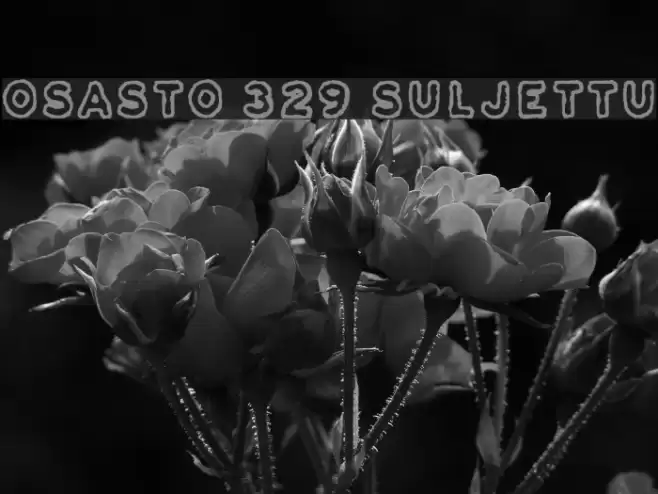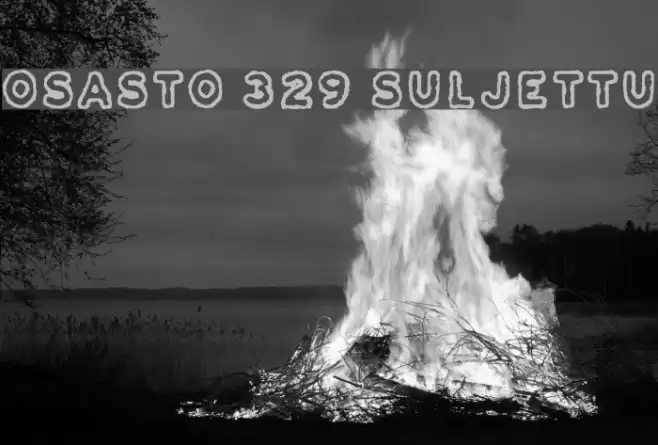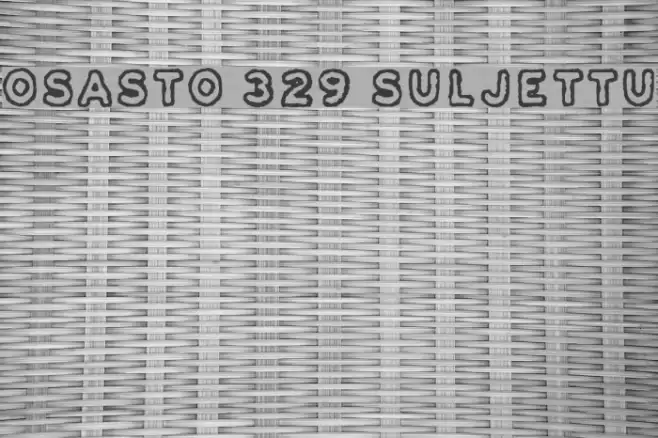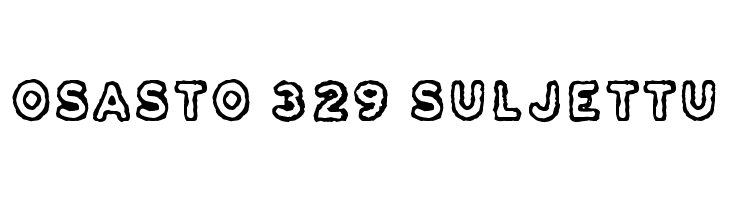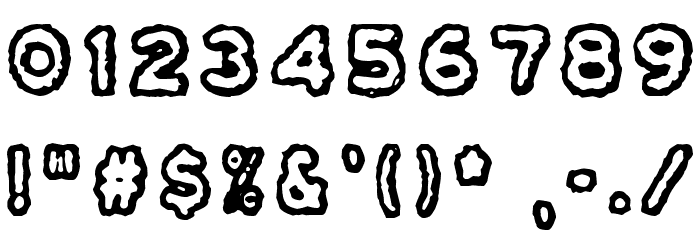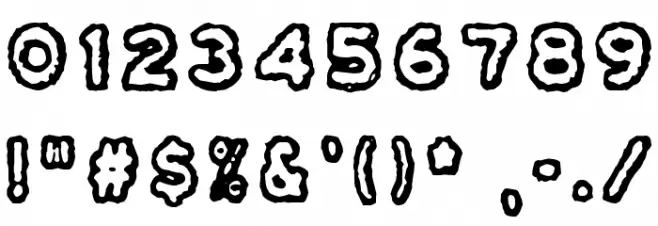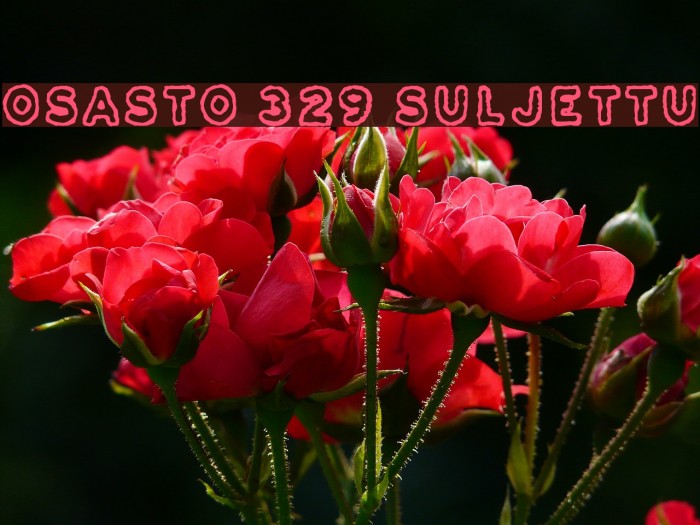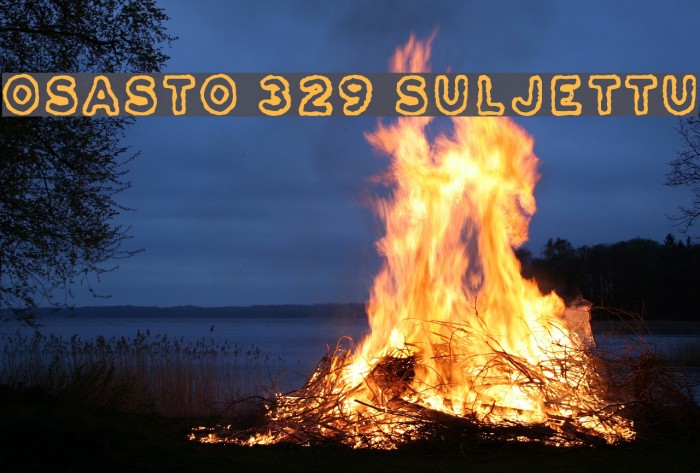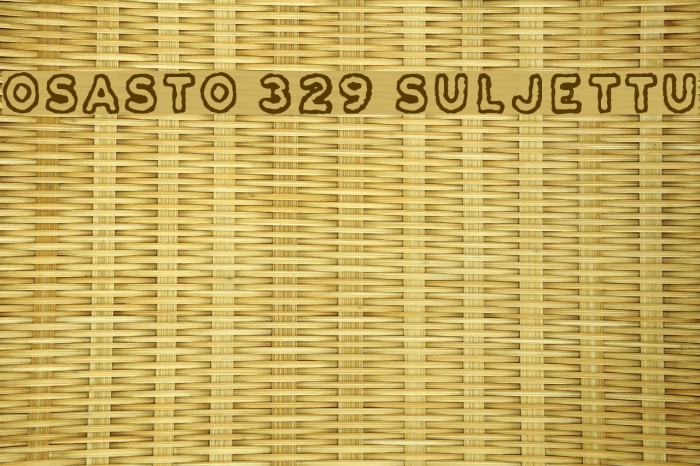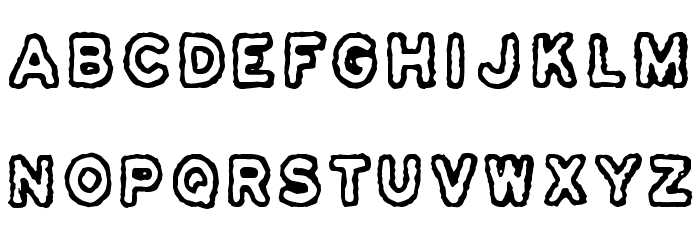
Osasto 329 suljettu Font
Osasto 329 suljettu Description
This font features a playful and bold design with a unique outline effect that gives each character a hand-drawn appearance. The letters are uppercase and lowercase, with numbers and a variety of special characters included. The style is reminiscent of a cartoon or comic book, with thick strokes and a slightly irregular shape that adds to its whimsical charm. The font's boldness and distinctive outline make it stand out, making it ideal for creative projects that require a fun and eye-catching typeface.
A playful, bold font with a hand-drawn outline effect from Fancy fonts.
- Proposed Projects: Ideal for children's books, comic strips, playful branding, posters, and creative invitations.
- Overall Style: Playful, Whimsical, Cartoonish
- Use Case: Headlines, Posters, Branding